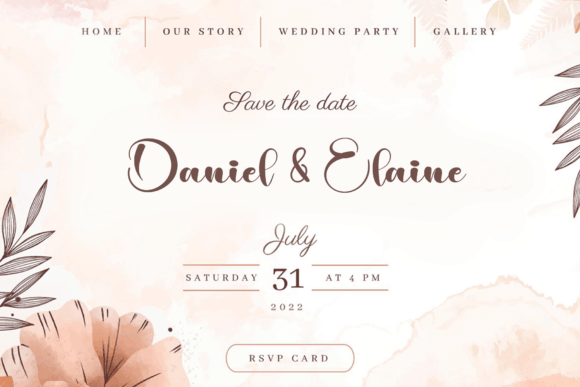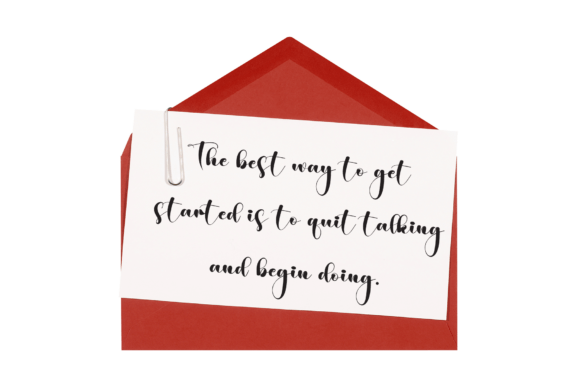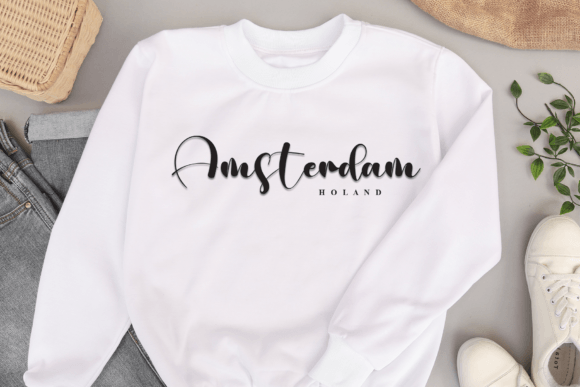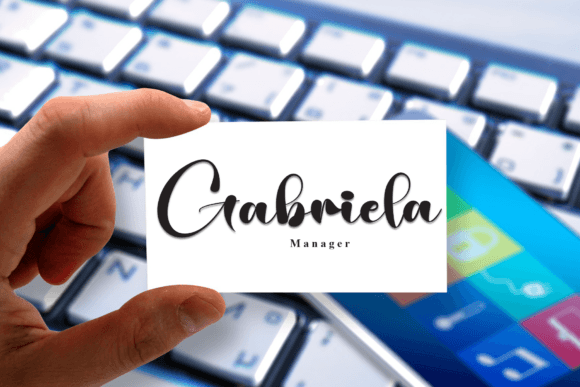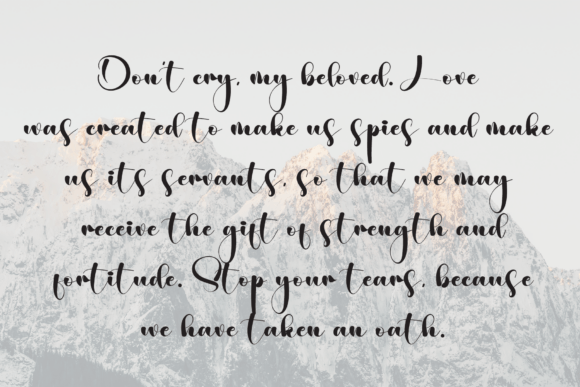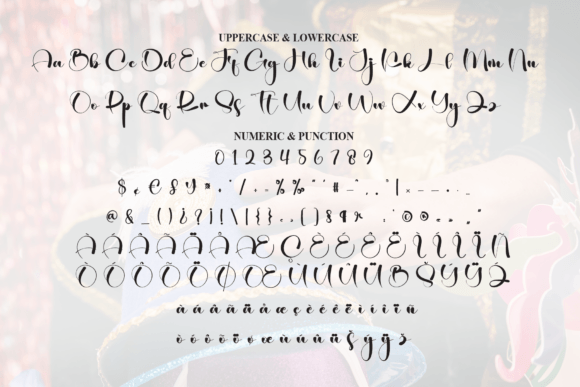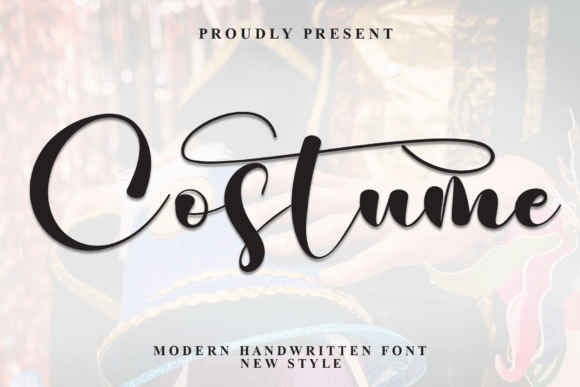
Introducing Costume Font: Elevate Your Designs with Elegance and Charm
Are you looking for a font that adds a touch of sophistication and refinement to your designs? Look no further than Costume Font, a stylish handwritten script font that exudes elegance and charm with its fluid, graceful strokes. In this article, we’ll explore the features and benefits of Costume Font, and how it can elevate your branding, invitations, stationery, and more.
The Characteristics of Costume Font
Costume Font is a beautifully crafted handwritten script font that boasts smooth curves and a natural flow. Its fluid strokes create a timeless, refined look that’s perfect for designers and crafters looking to add a personal touch to their work. The font’s elegant and charming aesthetic makes it ideal for a variety of design applications, from luxury branding to wedding invitations and stationery.
Perfect for Branding
When it comes to branding, the right font can make all the difference. Costume Font is an excellent choice for businesses looking to establish a sophisticated and refined image. Its elegant script strokes and fluid curves create a sense of luxury and high-end quality, making it perfect for:
• Luxury brand logos
• High-end product packaging
• Exclusive service offerings
Elevate Your Invitations and Stationery
Costume Font is also an excellent choice for designers and crafters looking to create beautiful invitations and stationery. Its smooth curves and natural flow create a sense of elegance and refinement, making it perfect for:
• Birthday party invitations
• Formal event invitations
• Personal stationery and letterheads
Benefits of Using Costume Font
So, why choose Costume Font for your design projects? Here are just a few benefits of using this beautiful handwritten script font:
• Elegance and sophistication: Costume Font adds a touch of luxury and refinement to any design
• Versatility: Perfect for a variety of design applications, from branding to invitations and stationery
• Easy to read: Despite its elegant script strokes, Costume Font is easy to read and understand
• Unique and distinctive: Stand out from the crowd with a font that’s both stylish and refined
Tips for Using Costume Font
To get the most out of Costume Font, here are a few tips to keep in mind:
• Use it sparingly: Costume Font is perfect for headings and titles, but use it sparingly to avoid overwhelming the design
• Pair it with a sans-serif font: Pair Costume Font with a clean sans-serif font for a beautiful contrast
• Experiment with colors: Try pairing Costume Font with a range of colors to create a unique and eye-catching design
In conclusion, Costume Font is a stylish handwritten script font that exudes elegance and charm with its fluid, graceful strokes. Perfect for branding, invitations, and stationery, it adds a personal and sophisticated touch to any design. With its smooth curves and natural flow, Costume Font creates a timeless, refined look that’s sure to impress. Whether you’re a designer, crafter, or DIY enthusiast, Costume Font is an excellent choice for anyone looking to elevate their designs with elegance and charm.
Get Creative with Costume Font